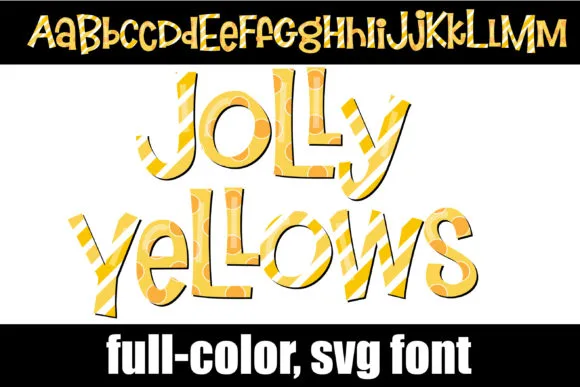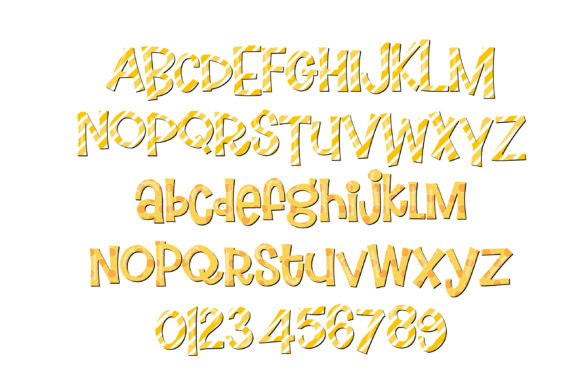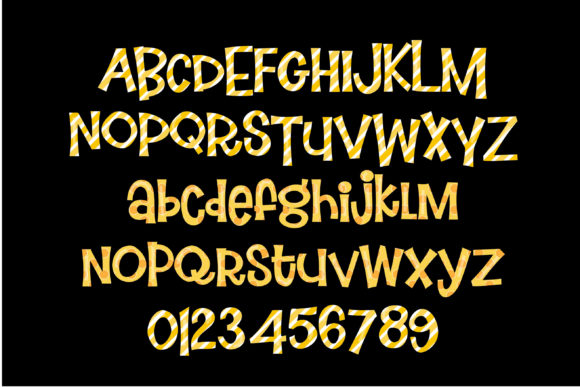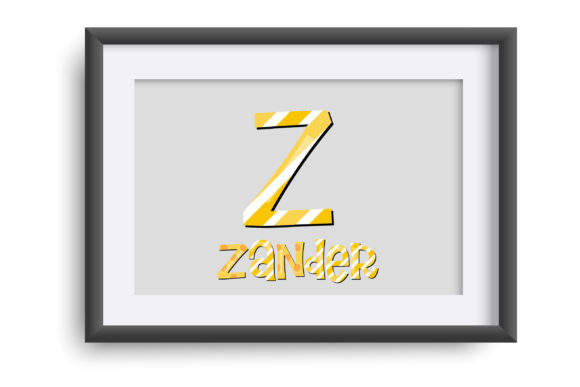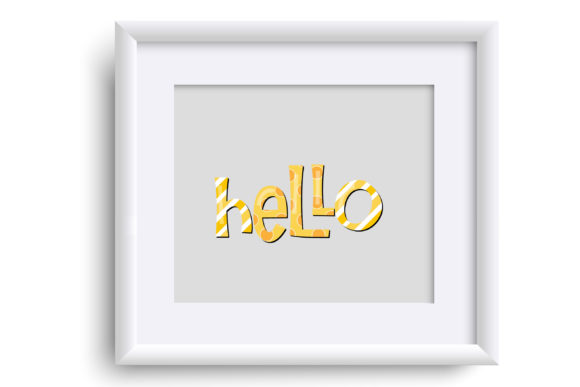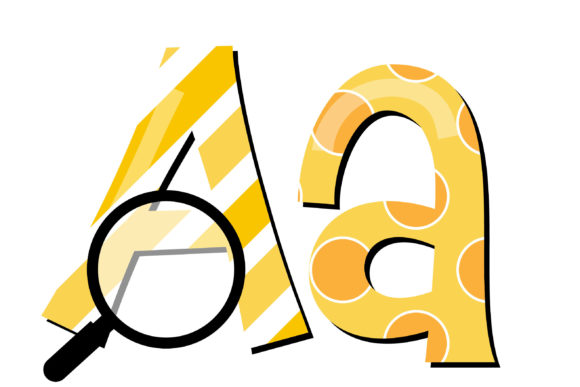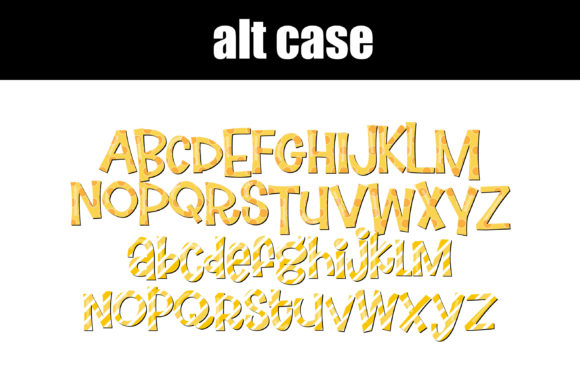
Jolly Yellows Font
About Jolly Yellows Font
The Jolly Yellows font is a whimsical typeface that features playful lettering in a delightful yellow color palette. With its fun and creative design, this font is perfect for adding a touch of cheerfulness to your projects. The font includes various ligatures, such as the double “l’s,” which add an extra element of creativity and visual interest.
Embrace the whimsical charm of the Jolly Yellows font and let its playful lettering and fun ligatures inspire your creative projects. Whether you’re designing invitations, greeting cards, social media graphics, or any other visual content, this font will bring a touch of joy and creativity to your work. Explore the various alternate characters and ligatures, and enjoy the delightful yellow color palette as you bring your ideas to life.